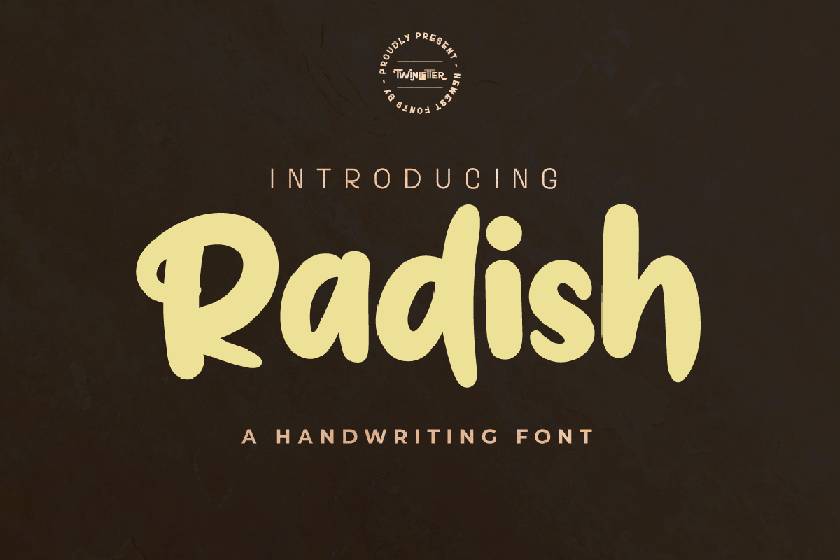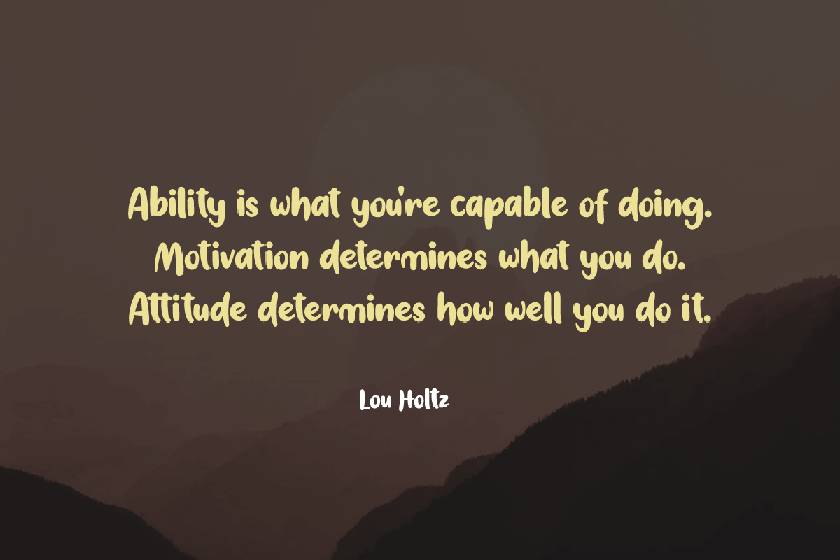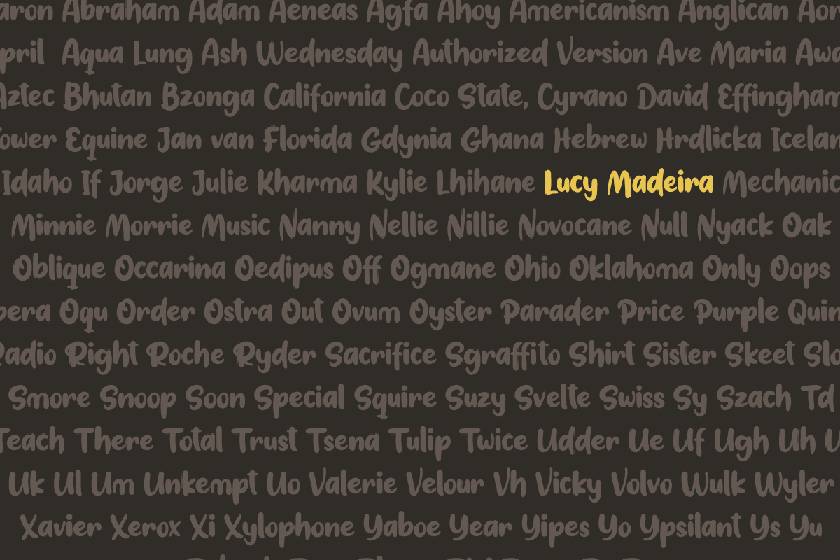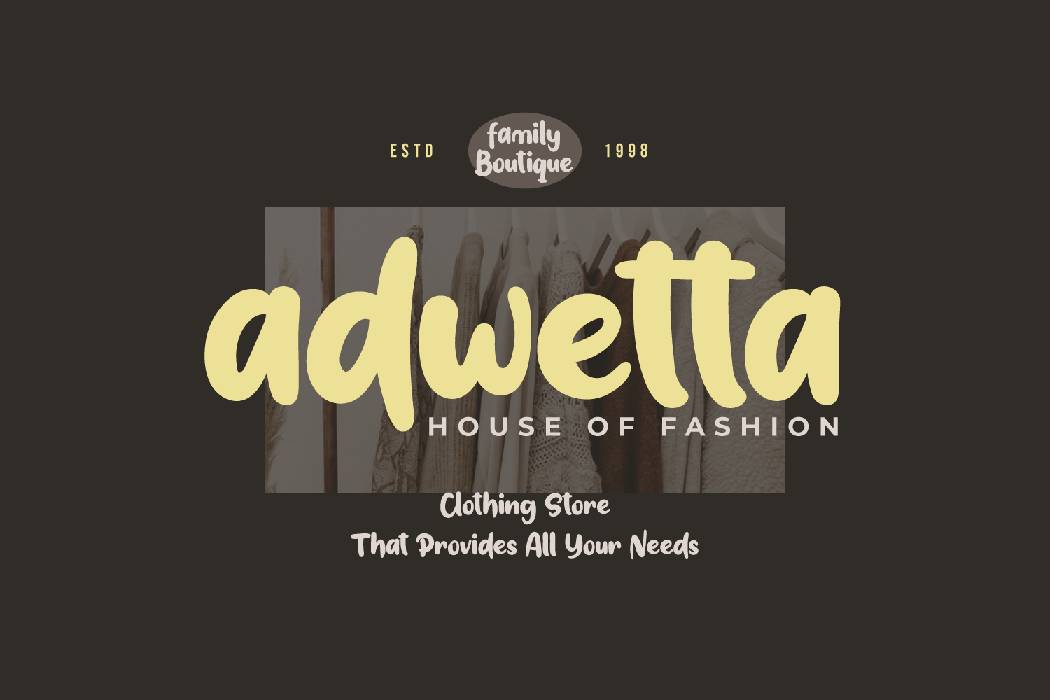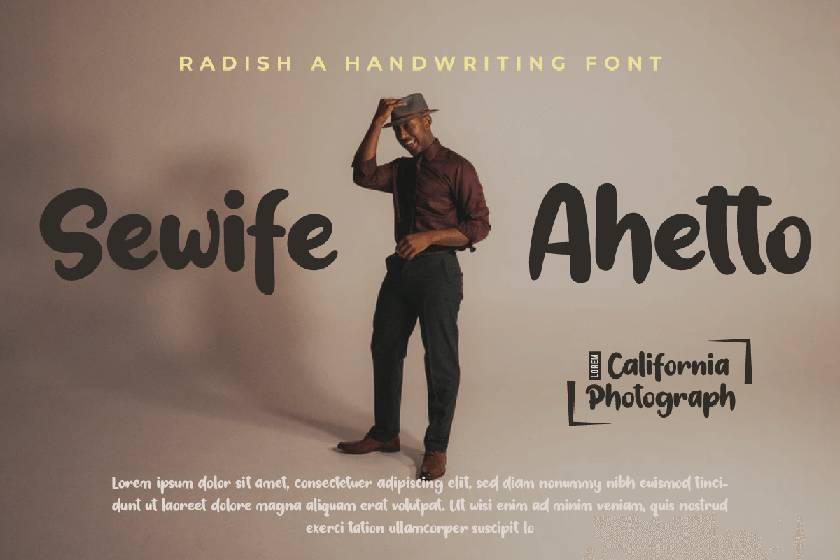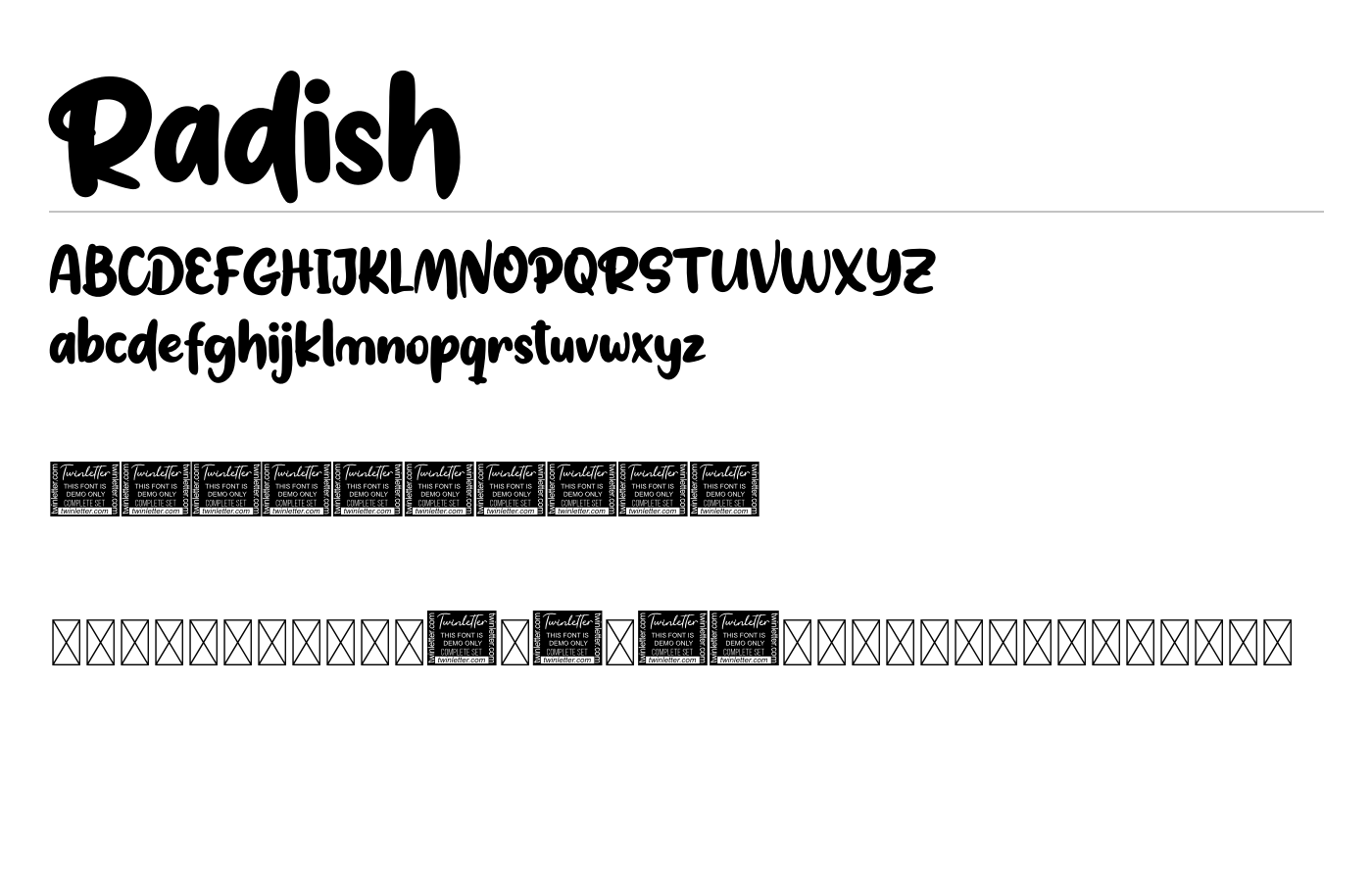
Radish is a playful and bold handwritten font with a casual, friendly vibe. Its thick, rounded strokes and slightly irregular letterforms create an approachable and lively feel, making it perfect for branding, packaging, and creative projects that seek a fun, informal touch. This font works especially well for headlines and logos where a warm and inviting personality is desired.
Radish Font
About Radish Font